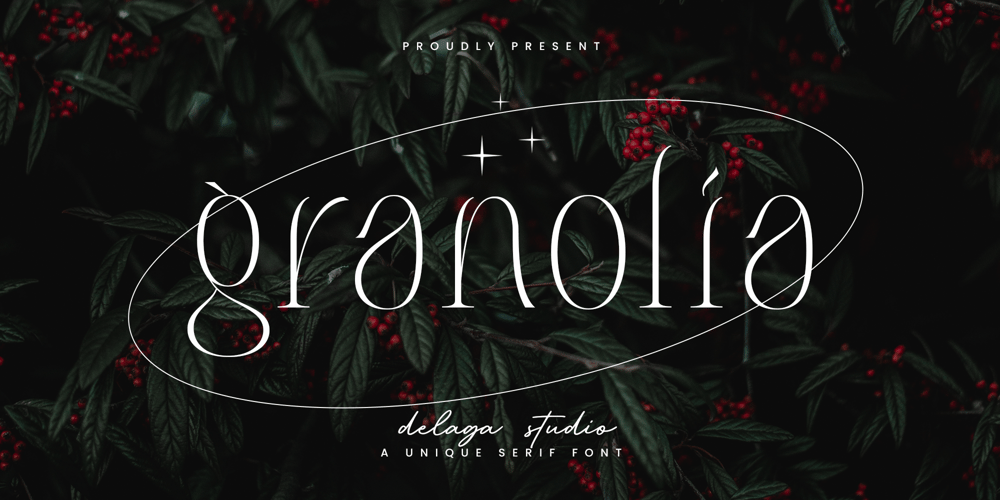
Granolia Font Family was designed by Faris Mu’afa and published by Delaga Studio. Granolia contains 1 styles and family package options. Granolia is a stylish serif with an artistic and classy touch that brings us into an era of nostalgia. The anatomy of thin letters collaborates with quirky alternatives and beautiful bindings to make any project look chic, upscale, quirky, artistic, and a bit of a retro vibe.————————————————————————–Features: All caps Stylistic Alternates & Ligatures Numerals & Punctuation Accented characters Multiple Languages Supported HOW TO ACCESS ALTERNATE CHARACTERS PUA Encoded —————————————————————————-Open glyphs panel:In Adobe Photoshop go to Window – glyphsIn Adobe Illustrator go to Type – glyphs———————————————————————————–Follow my shop for upcoming updates including additional glyphs and language support. And please message me if you want your language included or If there are any features or glyph requests, feel free to send me a message, I would like to update it.